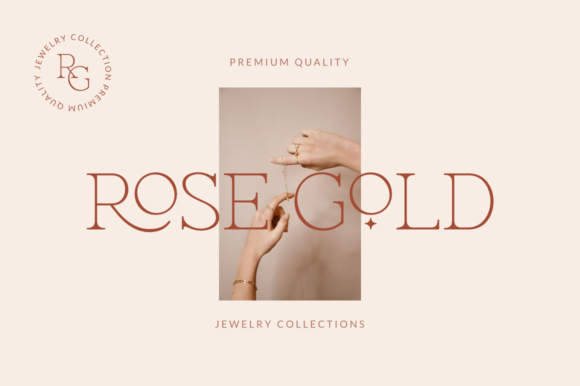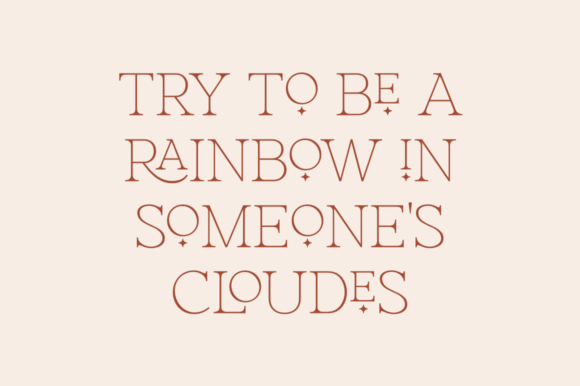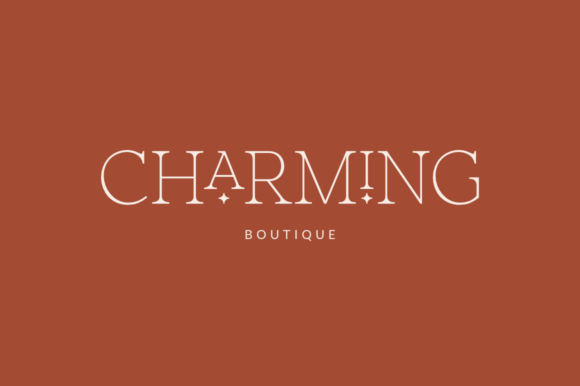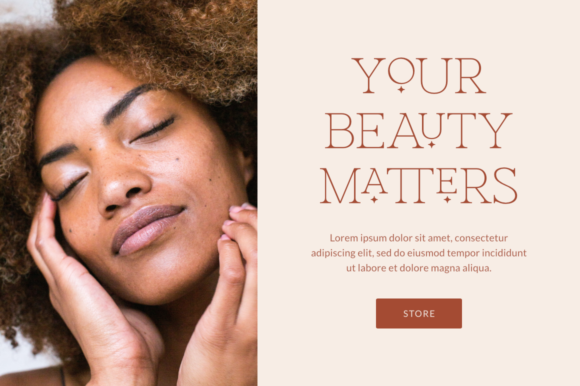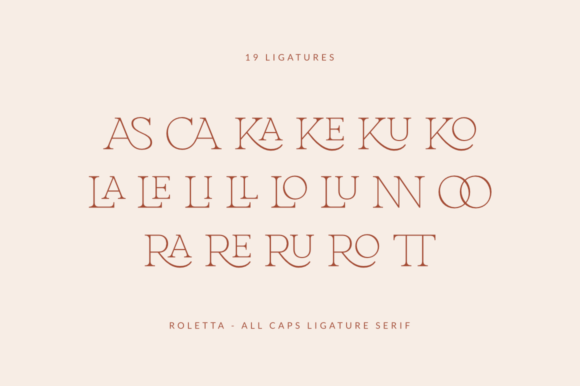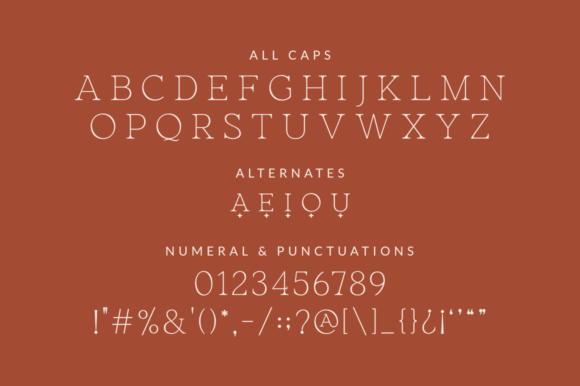
Introduction to Roletta Font
Have you ever found yourself in a creative jam, staring at a blank canvas, and desperately searching for the perfect design element to bring your project to life? This is where a reliable design resource can make all the difference. For designers, discovering a high-quality font that elevates their work can be a game-changer.
Enter the Roletta Font, a stunning serif font that exudes elegance and sophistication. Its simple yet refined design makes it an excellent choice for a wide range of creative projects, from digital art to craft designs. With its transparent background, the Roletta Font seamlessly integrates with various design elements, allowing you to unleash your creativity and produce stunning results.
Key Features of Roletta Font
- High-quality, professional font ideal for creative projects and design resources.
- Features a transparent background, making it suitable for use on various backgrounds and designs.
- Includes a wide range of characters, including uppercase and lowercase letters, numbers, and special symbols.
- Designed with a unique, elegant style that sets it apart from other fonts.
- Perfect for use in various design projects, including logos, branding, and digital art.
Honest Review: Roletta Font
I recently stumbled upon the Roletta Font and I’m excited to share my thoughts on this design resource. As a designer, I’m always on the lookout for high-quality fonts to elevate my creative projects.
- High-quality design: The Roletta Font has a clean and modern aesthetic that’s perfect for contemporary designs.
- Transparent background: This makes it easy to use the font on any background or design element.
- Limited style options: While the font is versatile, it may not be suitable for more traditional or classic designs.
- Not suitable for all font sizes: I found that the font can become pixelated at larger font sizes.
Overall, I think the Roletta Font is a great addition to any designer’s toolkit. While it may have some limitations, its high-quality design and free download make it a worthwhile resource for any creative project.
Tips for Getting the Most Out of Roletta Font
Common Use Cases for Roletta Font
Roletta Font is suitable for a variety of creative projects, including graphics, presentations, and documents. Its high-quality design and transparent background make it an excellent choice for creating professional-looking designs. You can use Roletta Font to add a touch of elegance and sophistication to your designs.
Yes, the Roletta Font features a transparent background, making it easy to use in designs that require a seamless integration with other elements. This feature is especially useful for designers working on projects that require a high level of visual sophistication.